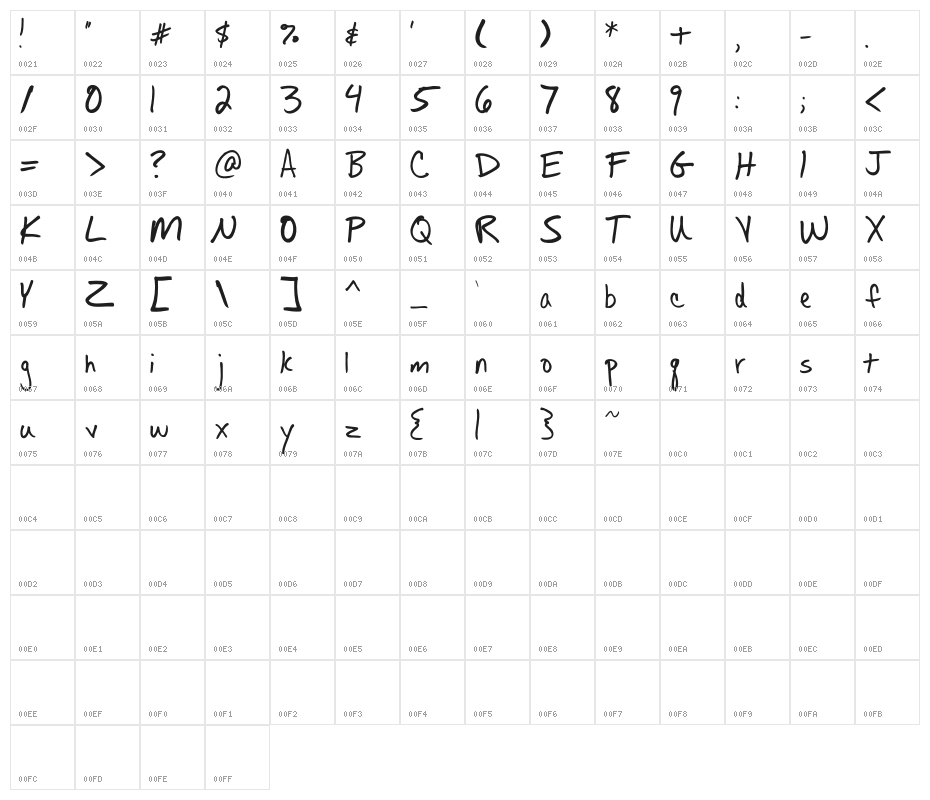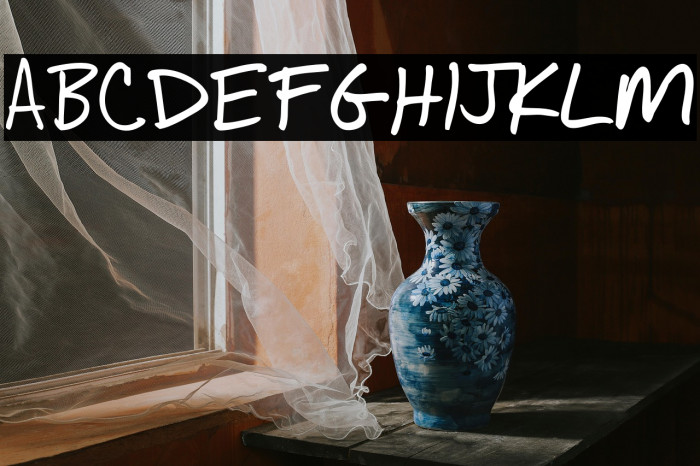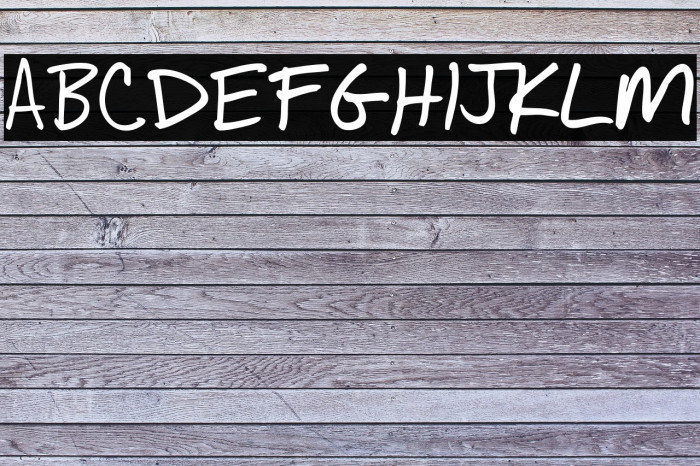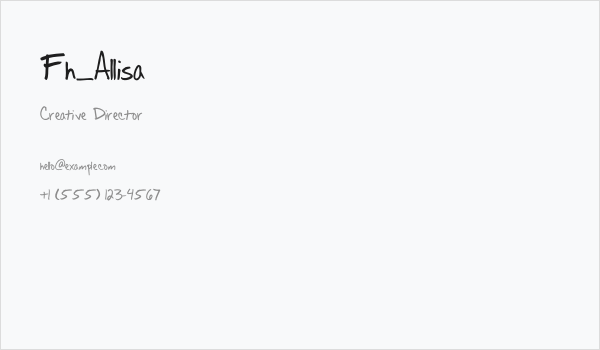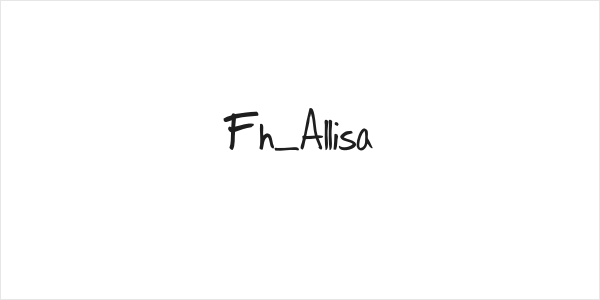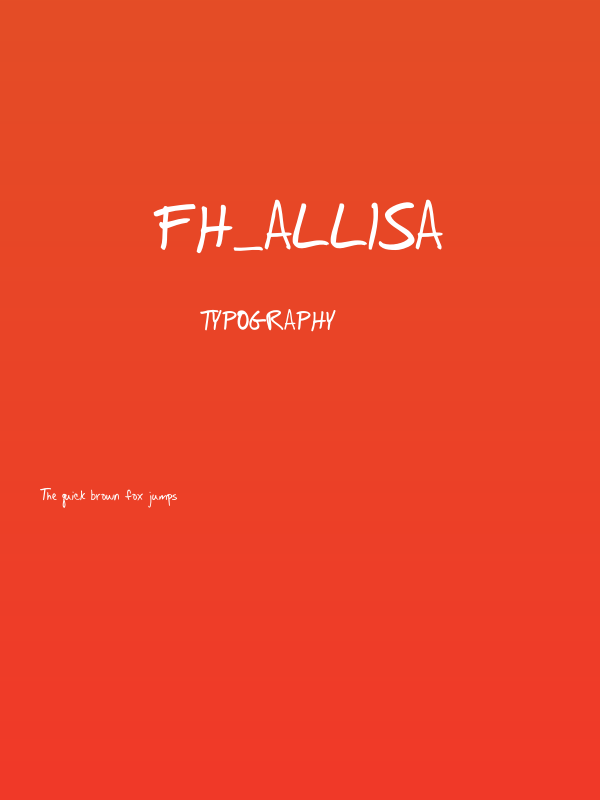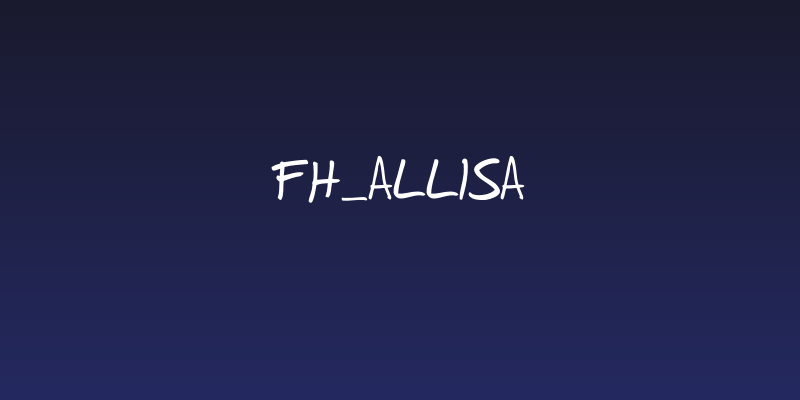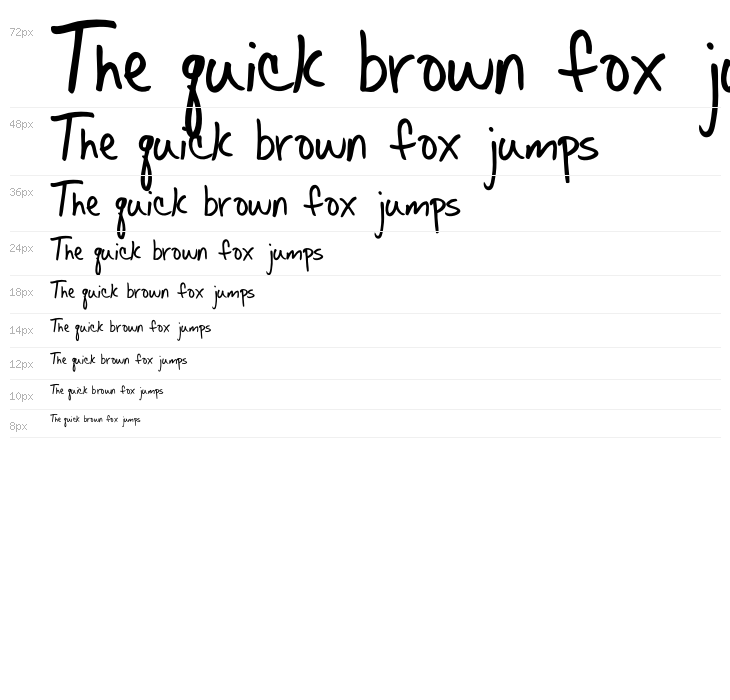
Fh_Allisa Font
Fh_Allisa Description
This font exudes a casual, handwritten style with a playful and informal appearance. The letters are slightly slanted, giving it a dynamic and lively feel. The strokes are uneven, mimicking the natural flow of handwriting, which adds a personal touch. The uppercase and lowercase letters maintain a consistent style, with rounded edges and a slight tilt. Numbers and special characters follow the same handwritten aesthetic, ensuring uniformity across all elements. This font is ideal for projects that require a personal, approachable, and friendly tone.
| Proposed Projects | Great for personal notes, invitations, greeting cards, and informal branding. |